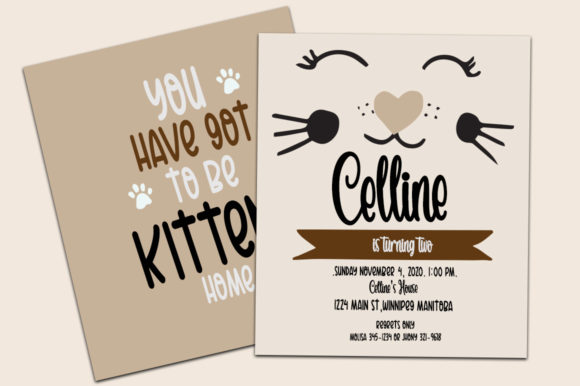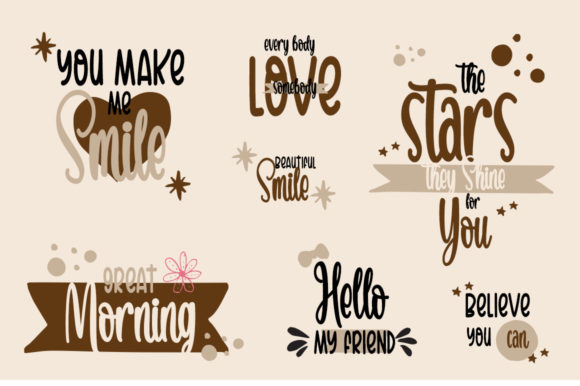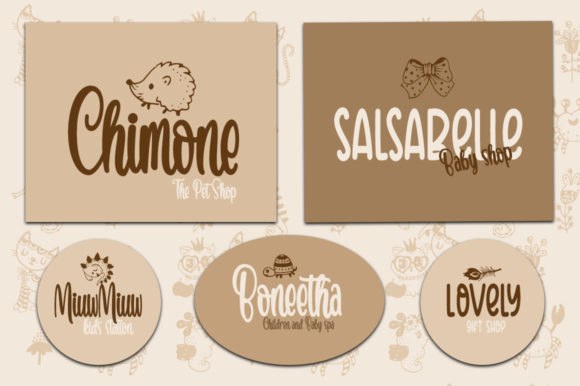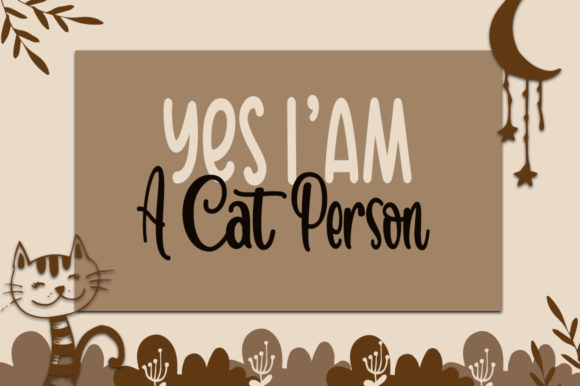
Introducing Catheline Pretty Meow Font: The Purrfect Addition to Your Design Arsenal
Are you a designer or crafter on the lookout for a font that can elevate your creative projects? Look no further than Catheline Pretty Meow, a versatile handwritten font that’s sure to capture hearts. With its beautiful and well-balanced characters, this font is an excellent match for a wide range of designs. In this article, we’ll dive into the world of Catheline Pretty Meow, exploring its features, benefits, and uses.
A Versatile Handwritten Font
Catheline Pretty Meow is a carefully crafted handwritten font that’s designed to be both elegant and approachable. Its versatility makes it an excellent choice for various design projects, from branding and advertising to crafting and DIY tutorials. Whether you’re creating a whimsical invitation, a stylish logo, or a charming blog post, this font is sure to add a touch of personality to your work.
Beautifully Balanced Characters
One of the standout features of Catheline Pretty Meow is its beautifully balanced characters. Each letter is carefully designed to be visually appealing, with a perfect blend of curves and lines. The font’s characters are well-proportioned, making it easy to read and understand. This attention to detail ensures that your designs will look polished and professional, even when using a handwritten font.
Matching a Wide Pool of Designs
Catheline Pretty Meow’s versatility is one of its greatest strengths. This font can be paired with a wide range of designs, from modern and minimalist to vintage and playful. Whether you’re creating a design for a children’s book, a fashion brand, or a lifestyle blog, this font is sure to complement your style. Its adaptability makes it an excellent addition to any designer’s or crafter’s toolkit.
Catheline Pretty Meow is an excellent choice for designers and crafters who want to add a personal touch to their work. This font is ideal for:
• Branding and advertising: Create eye-catching logos, business cards, and brochures that showcase your brand’s personality.
• Crafting and DIY tutorials: Add a touch of whimsy to your tutorials, patterns, and instructions.
• Blogging and social media: Elevate your blog posts and social media graphics with a stylish and approachable font.
• Stationery and invitations: Design beautiful invitations, greeting cards, and stationery that will make your recipients feel special.
Tips for Using Catheline Pretty Meow
To get the most out of Catheline Pretty Meow, here are some tips to keep in mind:
• Experiment with font sizes: Catheline Pretty Meow looks great in a variety of font sizes, from large headings to smaller body text.
• Pair with complementary fonts: Try pairing Catheline Pretty Meow with sans-serif fonts for a modern contrast or with other script fonts for a more elegant look.
• Use it consistently: To create a cohesive look, use Catheline Pretty Meow consistently throughout your design.
Catheline Pretty Meow is a versatile and beautiful handwritten font that’s perfect for designers and crafters. With its well-balanced characters and adaptability, this font is sure to become a staple in your design toolkit. Whether you’re creating a logo, a blog post, or a DIY tutorial, Catheline Pretty Meow is the purrfect addition to your design arsenal. So why wait? Give Catheline Pretty Meow a try today and see how it can elevate your designs!
• Versatile handwritten font
• Beautifully balanced characters
• Matches a wide pool of designs
• Perfect for designers and crafters
• Ideal for branding, advertising, crafting, and more